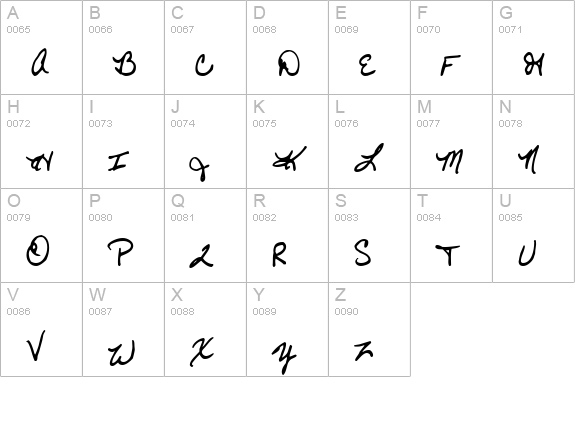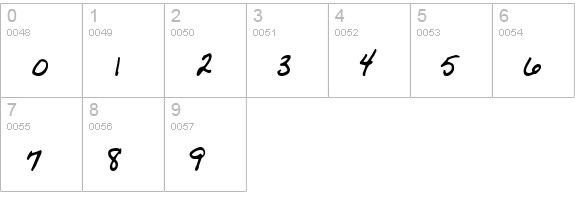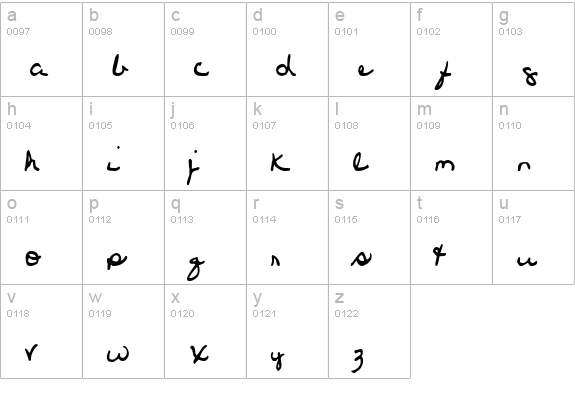
Pierre Tryout Font Details
Introducing Pierre Tryout, a beautifully crafted font that effortlessly combines elegance with sophistication. This versatile typeface is perfect for projects that demand a touch of class and refinement. With its sleek and slender letterforms, Pierre Tryout exudes a sense of modernity and style. Each character is meticulously designed to create a harmonious balance, resulting in a visually pleasing reading experience. But what sets Pierre Tryout apart is not just its exquisite design, but also the fact that it is available for free download at FontsMarket.com. Yes, you read that right – this stunning font can be yours without spending a single penny. Whether you're a professional designer, a creative enthusiast, or simply someone looking to add a touch of elegance to your personal projects, Pierre Tryout is the ideal choice. Its versatility allows it to be used across a wide range of design applications, from logos and branding to editorial layouts and invitations. So why wait? Embrace the beauty and sophistication of Pierre Tryout today. Download it for free at FontsMarket.com and unlock a world of endless creative possibilities. Elevate your designs with this exceptional font and make a statement that is truly unforgettable.